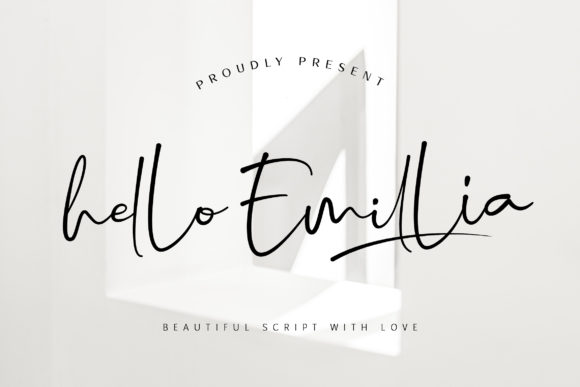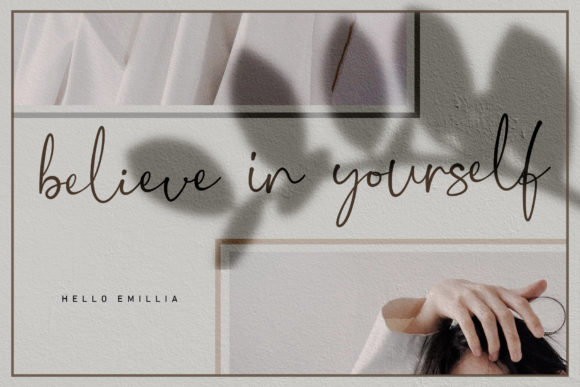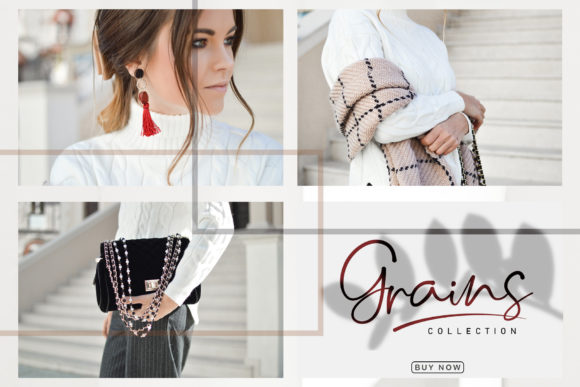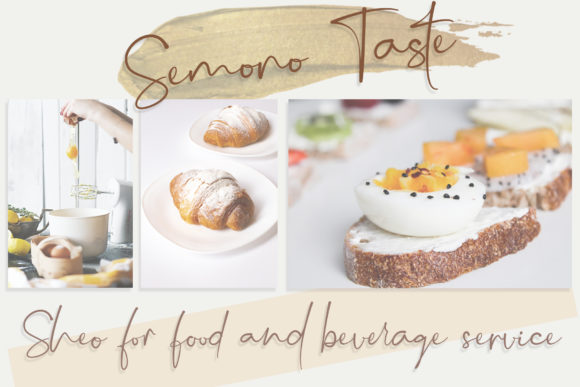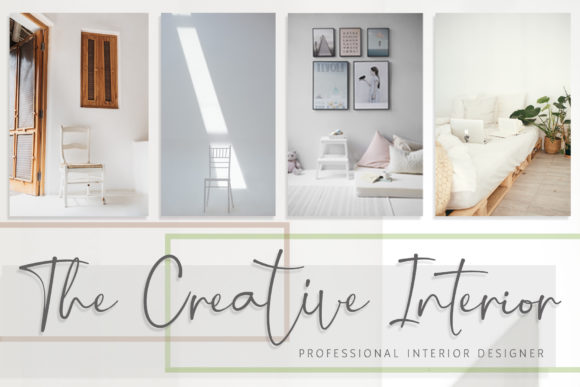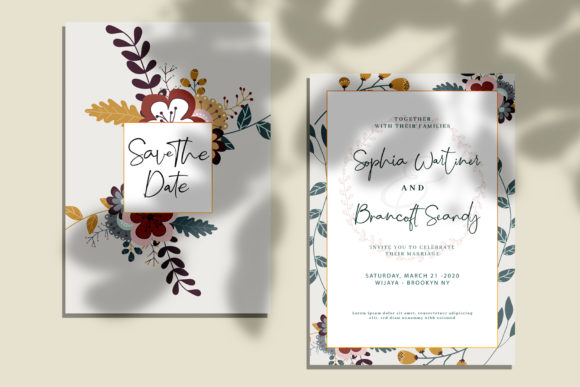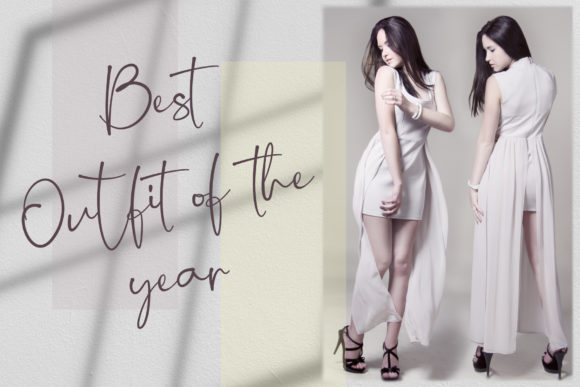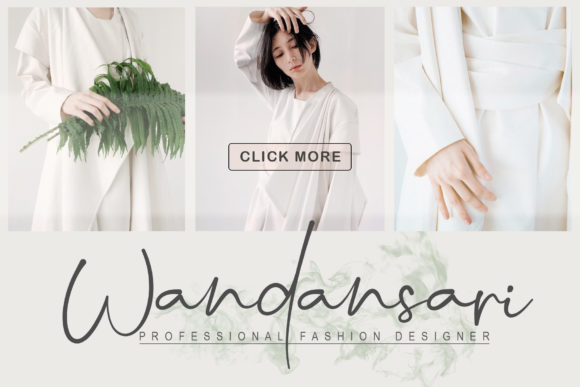
Hello Emillia Font
Hello Emillia is the perfect font for any design project that requires a luxurious and sophisticated feel. Use it to turn any design project into a true standout.